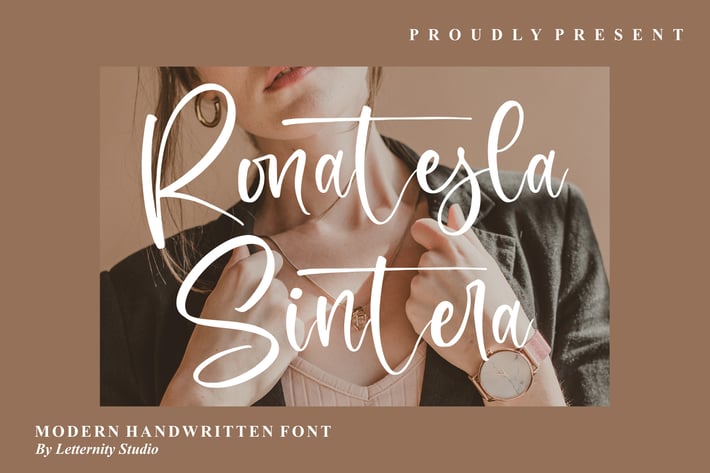
Ronatesla Sintera Modern Handwritten Font
Ronatesla Sintera is a modern handwritten script designed to elevate both digital and print work with smooth, elegant strokes and a warm, personal feel.
+ Modern handwritten/script style with clean, flowing curves
+ Web-font ready; normal spacing; looks great at any size
+ Versatile for headlines, subheads, quotes, and signatures
Perfect for:
+ Posters & social media posts
+ Branding & personal projects
+ Invitations
+ Logos & business cards
+ Promotional graphics
Handwritten elegance—made modern for brands and creatives.